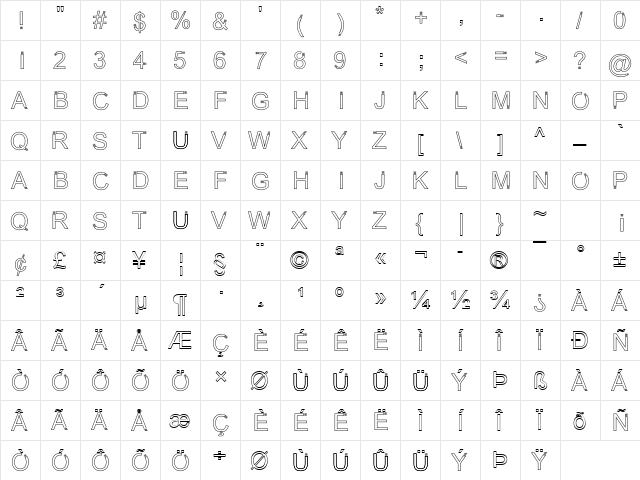
No Smoking Regular
Design Context for No Smoking Typeface
No Smoking is a composed and adaptable typeface that performs quietly and consistently across a wide range of design contexts.